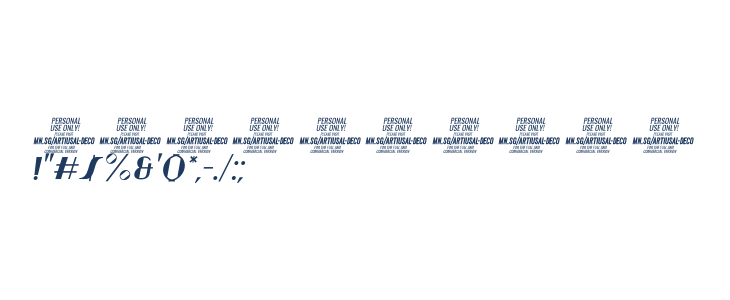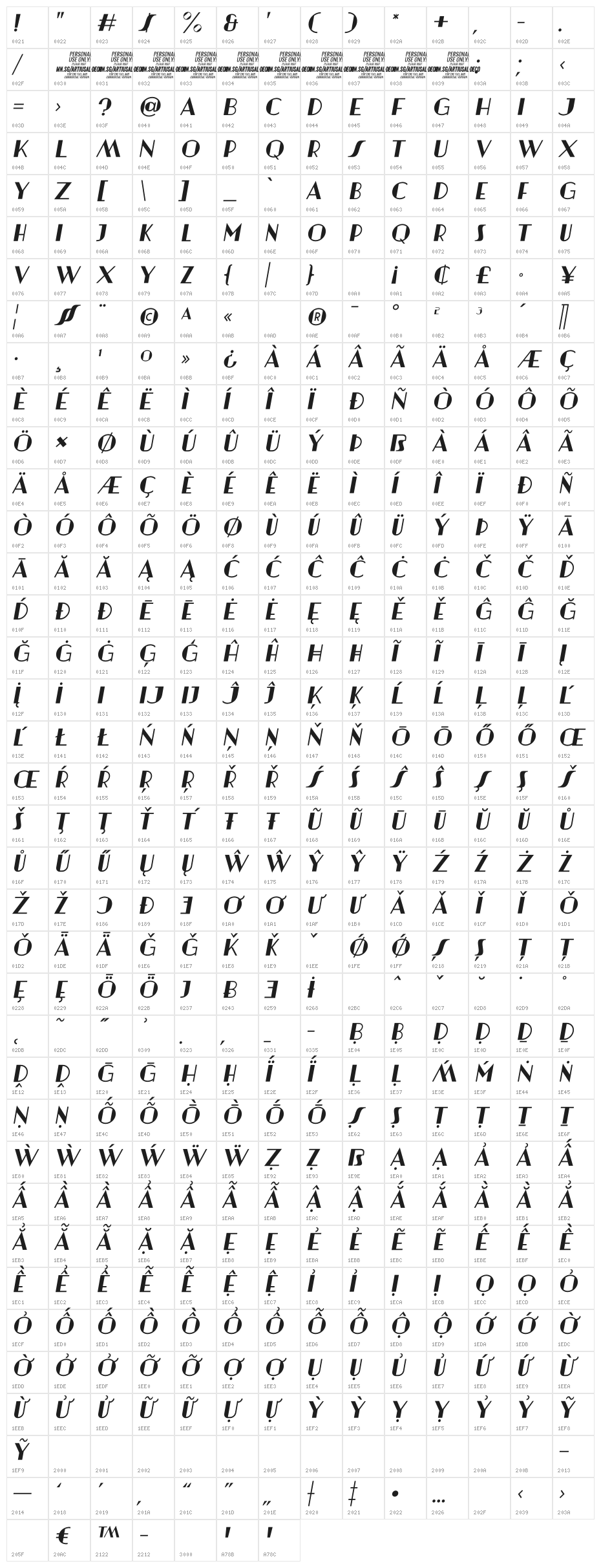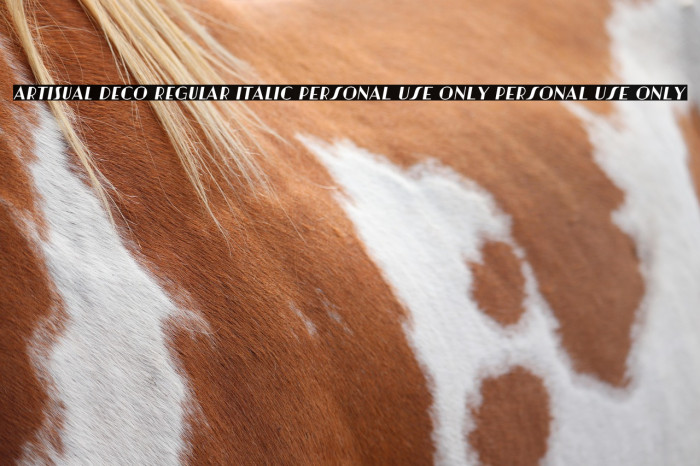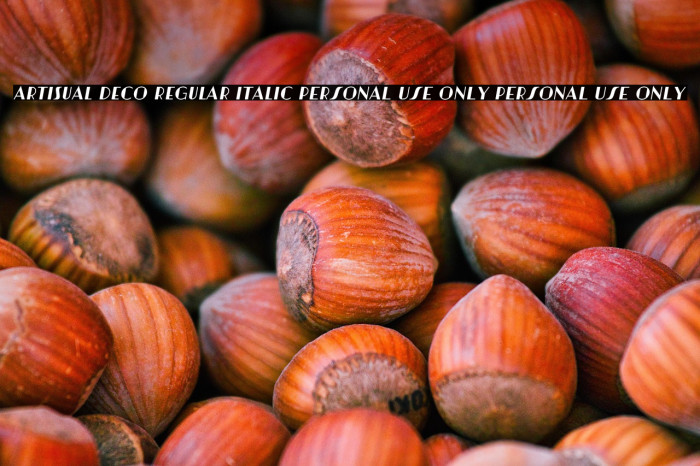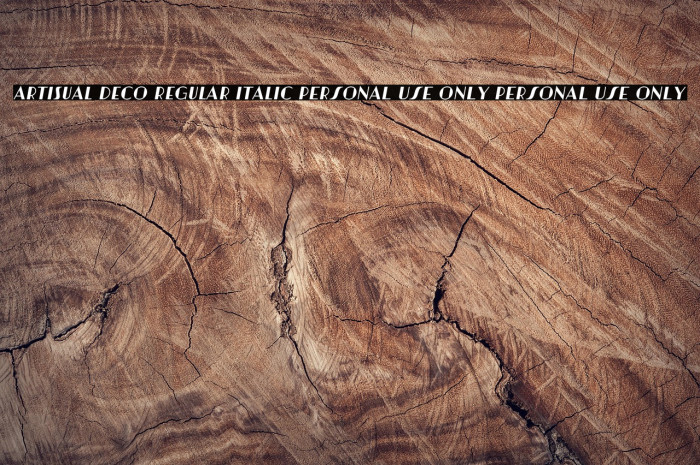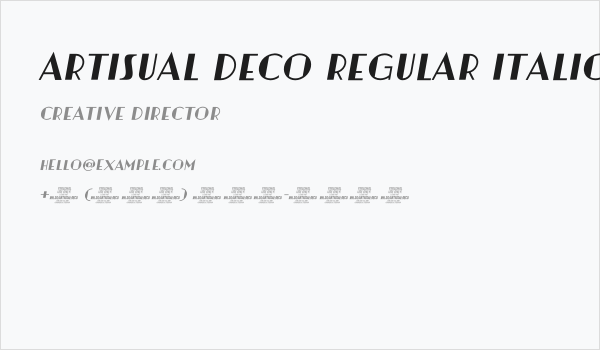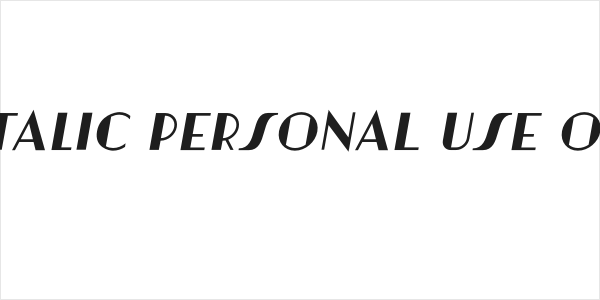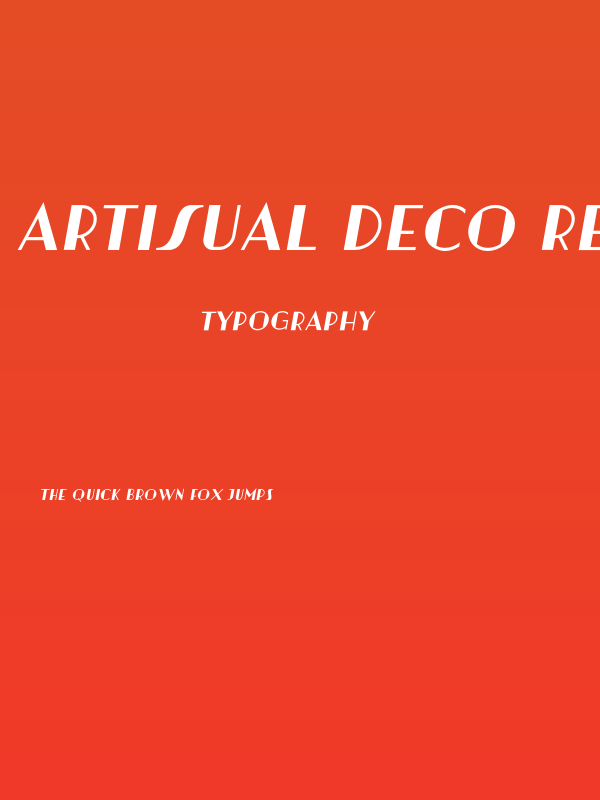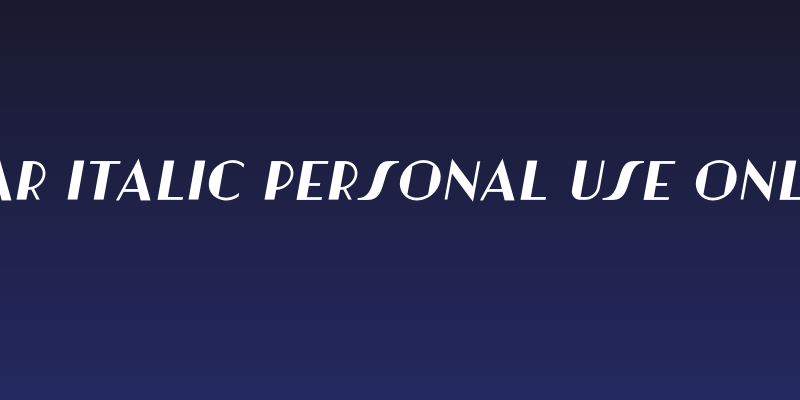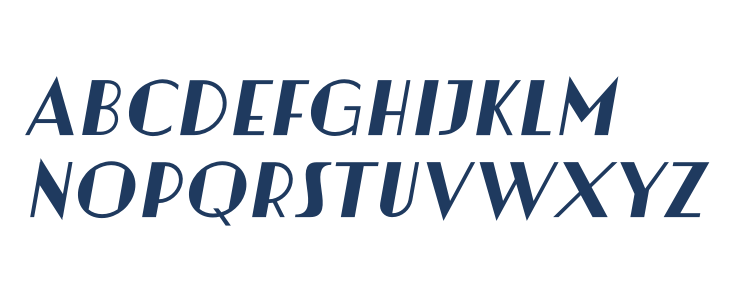
Artisual Deco Regular Italic PERSONAL USE ONLY Font
Artisual Deco Regular Italic PERSONAL USE ONLY Description
This font features a striking Art Deco-inspired design, characterized by its bold, angular lines and geometric shapes. The uppercase letters exhibit a distinct slant, adding a dynamic and elegant flair. The lowercase letters maintain a consistent style, complementing the uppercase with their sleek and modern appearance. The numerals and special characters are crafted with the same attention to detail, ensuring a cohesive look across all glyphs. The italic style enhances the font's sophistication, making it suitable for projects that require a touch of vintage glamour.